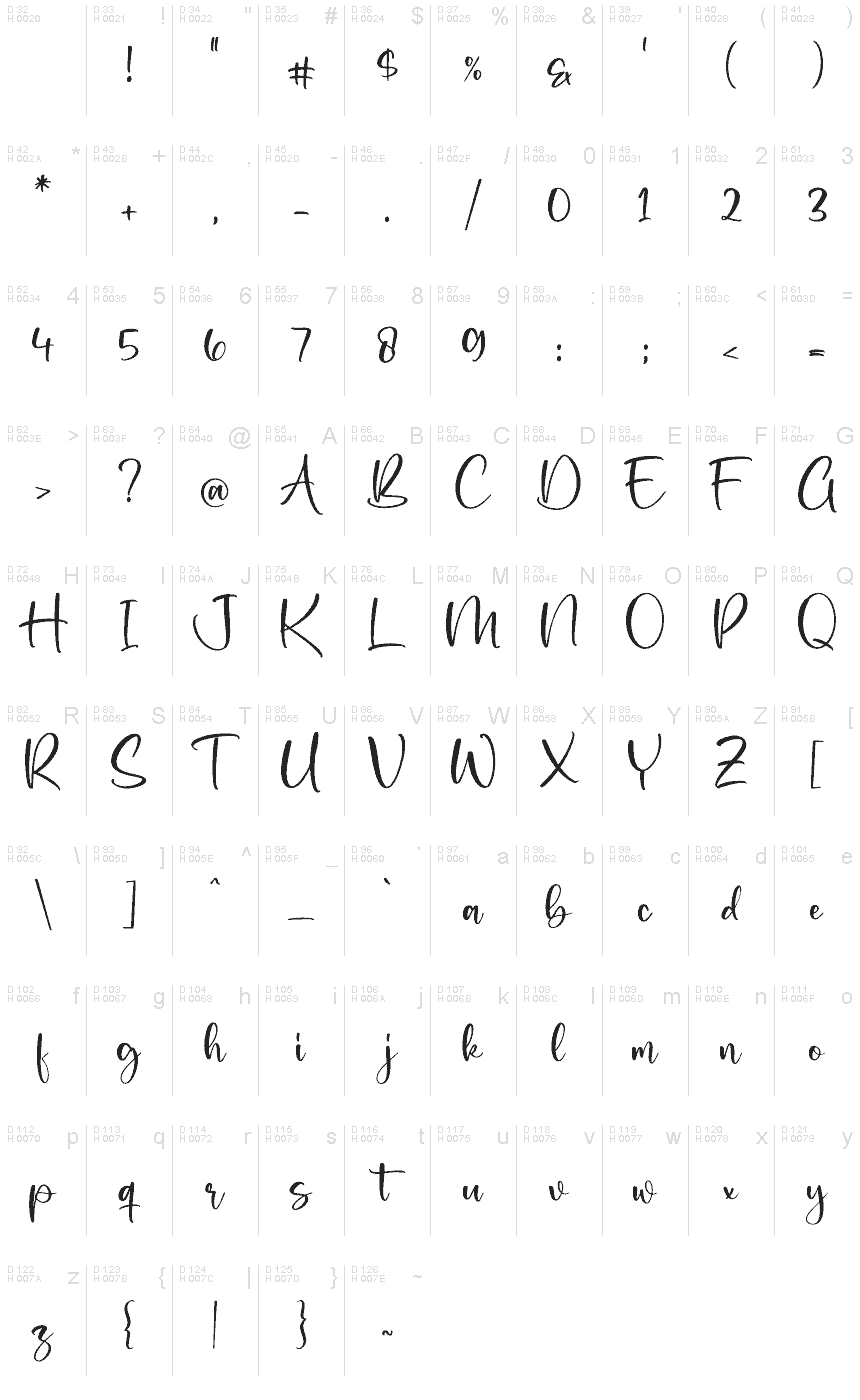
Bronwish Albilone
Bronwish Albilone font by Perspectype Studio - Letterena.com is a truly unique and artistic free handwritten font to integrate into your designs. It stands out with its wonderful flowing characters and distinct contemporary script style which, when combined with its careful design, adds to its overall elegant appearance. Visualize your texts gaining life and attracting the audience’s attention every time.
Bronwish Albilone font works flawlessly in book covers, headings, title designs, handcrafted products, invitation cards, and greeting cards as well as labels. It can be used for logo creation purposes or branding projects. Additionally, you can use it in social media posts, posters (printed or digital), websites…